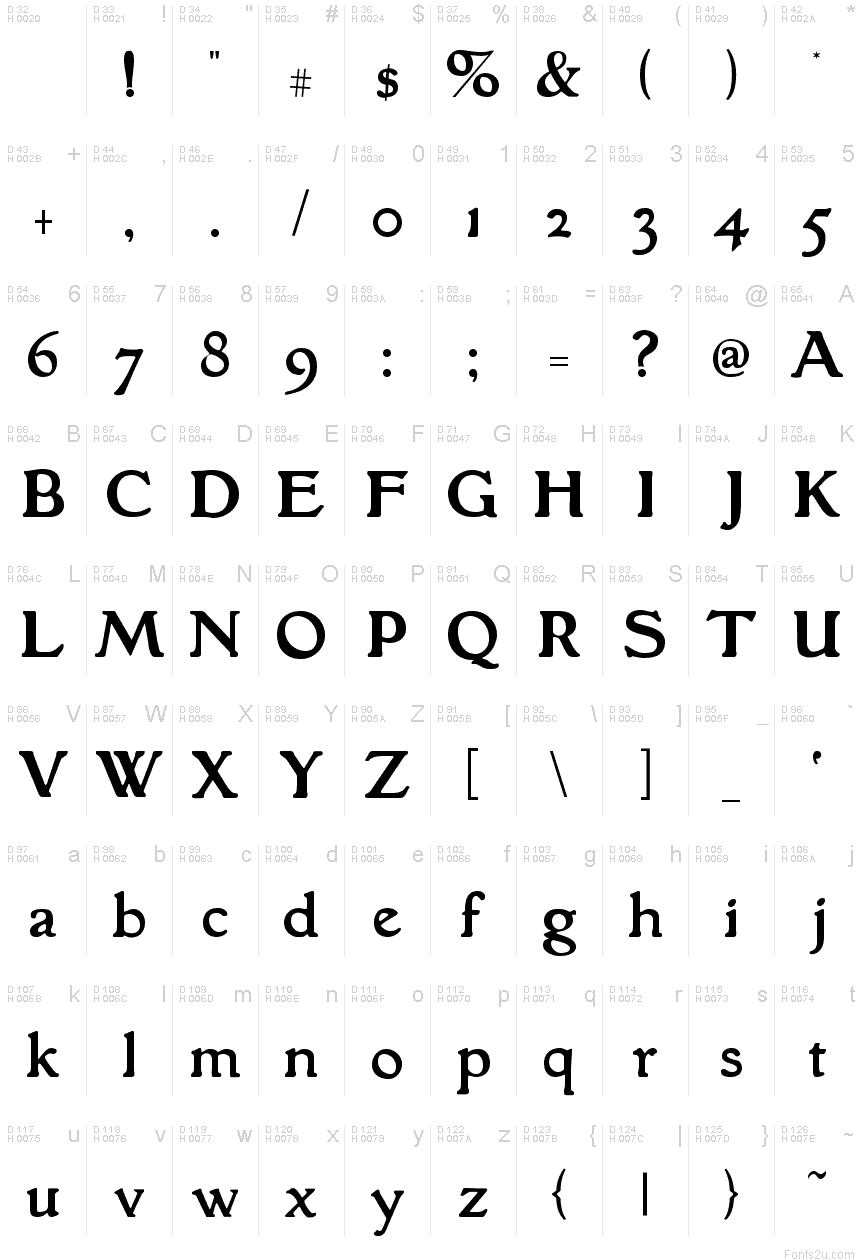
Grantham Roman
Grantham Roman font by PJL is a free serif typeface with a wonderfully inky, bookish warmth. Its softly rounded strokes and sturdy, slightly flared serifs give each word a gentle sway, like letterforms set by hand on a traditional press. The overall rhythm feels calm and confident, making text look substantial without feeling stiff or old-fashioned.
Using Grantham Roman, you get a serif that shines on book covers, literary magazines, heritage food packaging, cozy café branding, invitations, posters, and editorial pull quotes. This free font works beautifully when you set it a bit larger to show off its curves, then pair it with a clean geometric sans for supporting text or navigation.